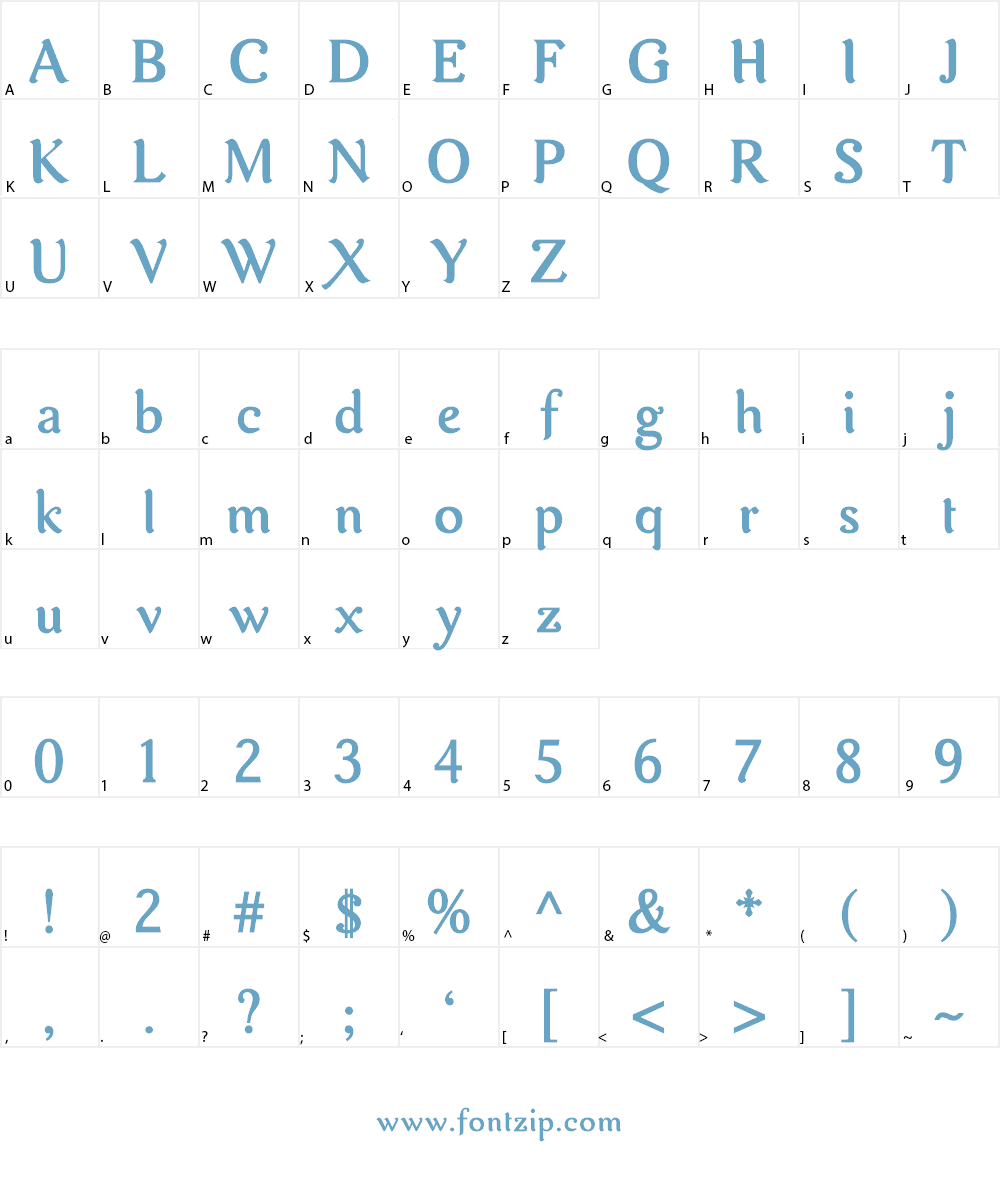
Aurelis can be used for both the text and titration. The script version is particularly suitable for maps, brochures and other advertising presentations.